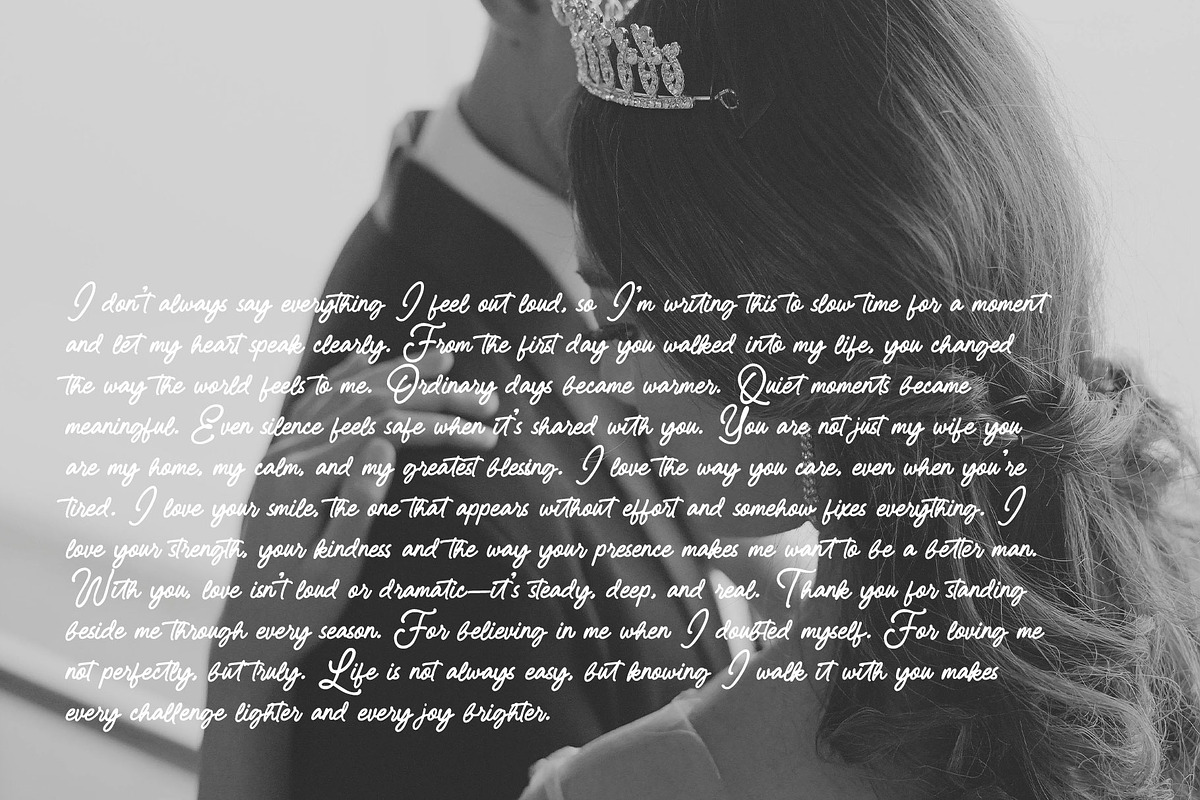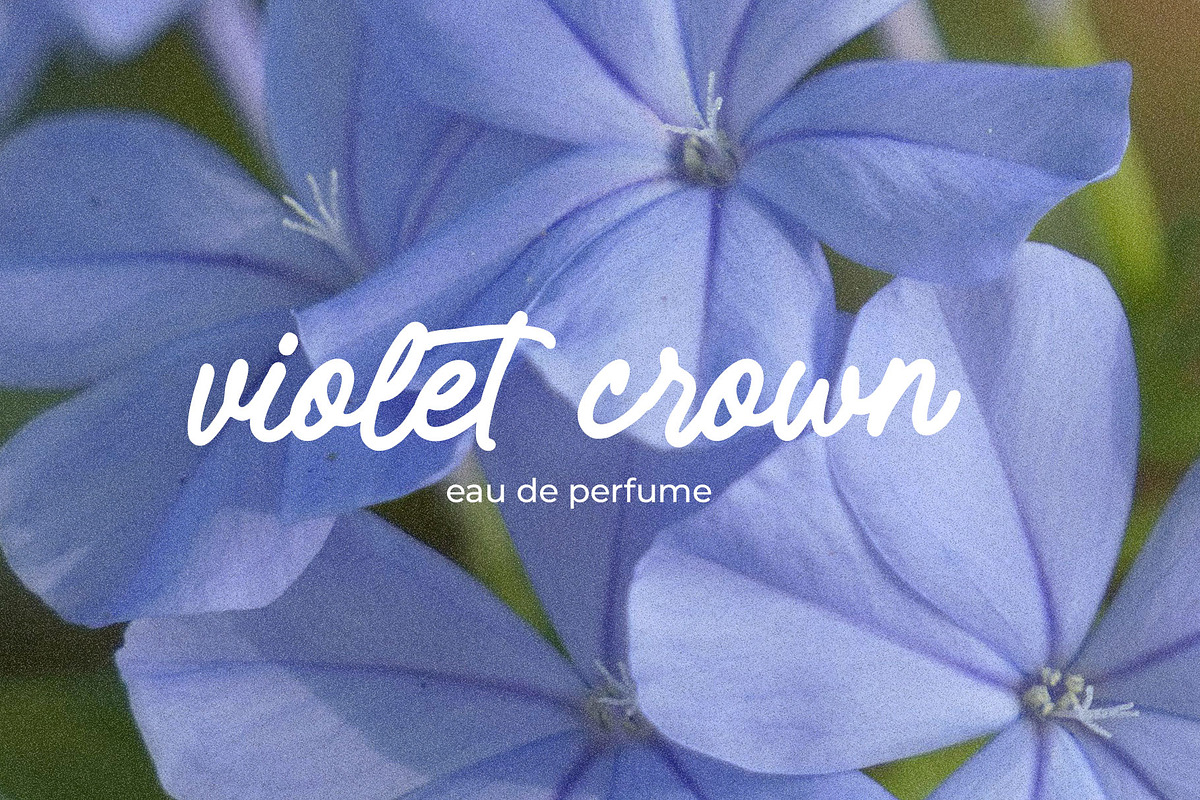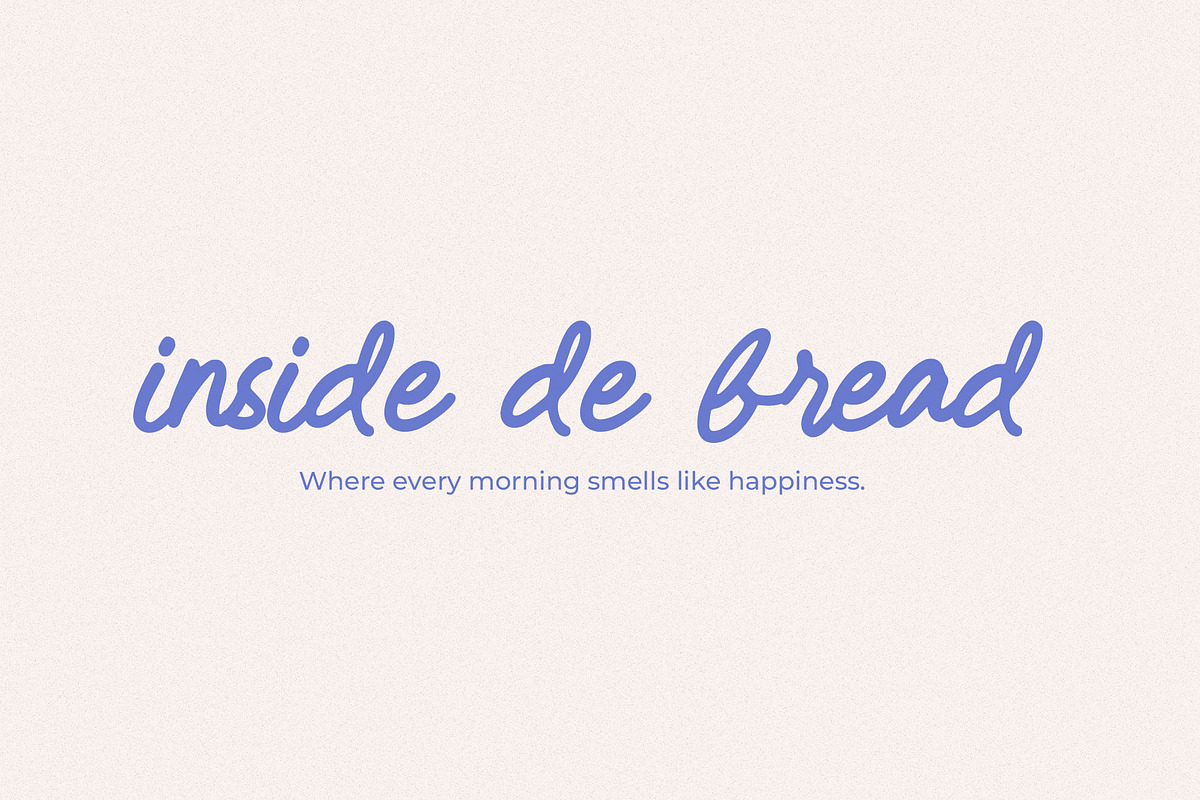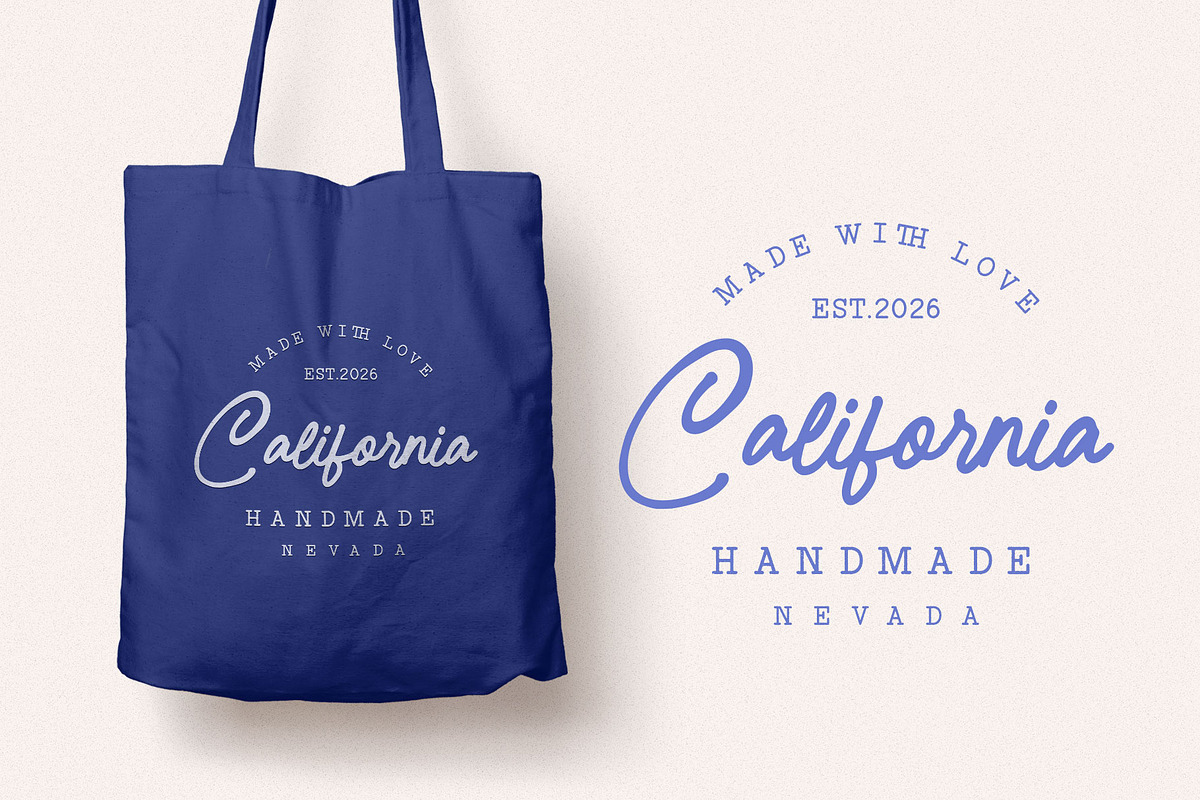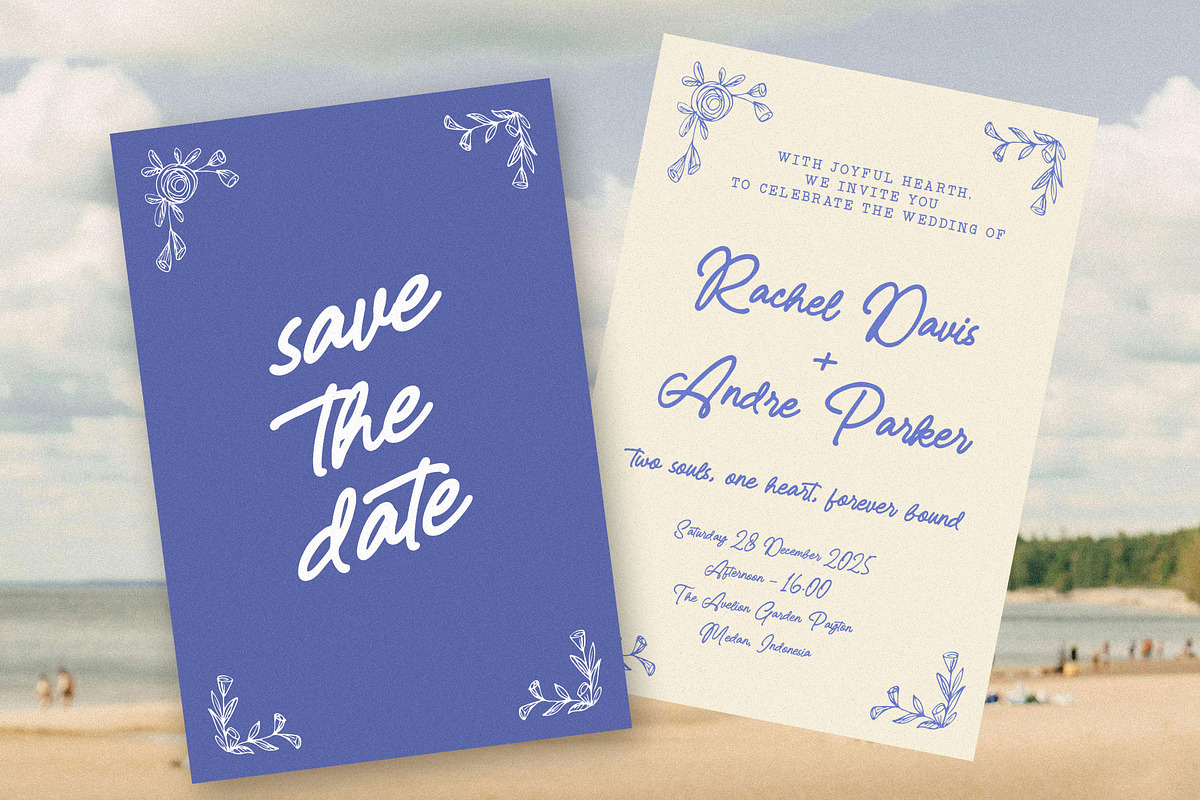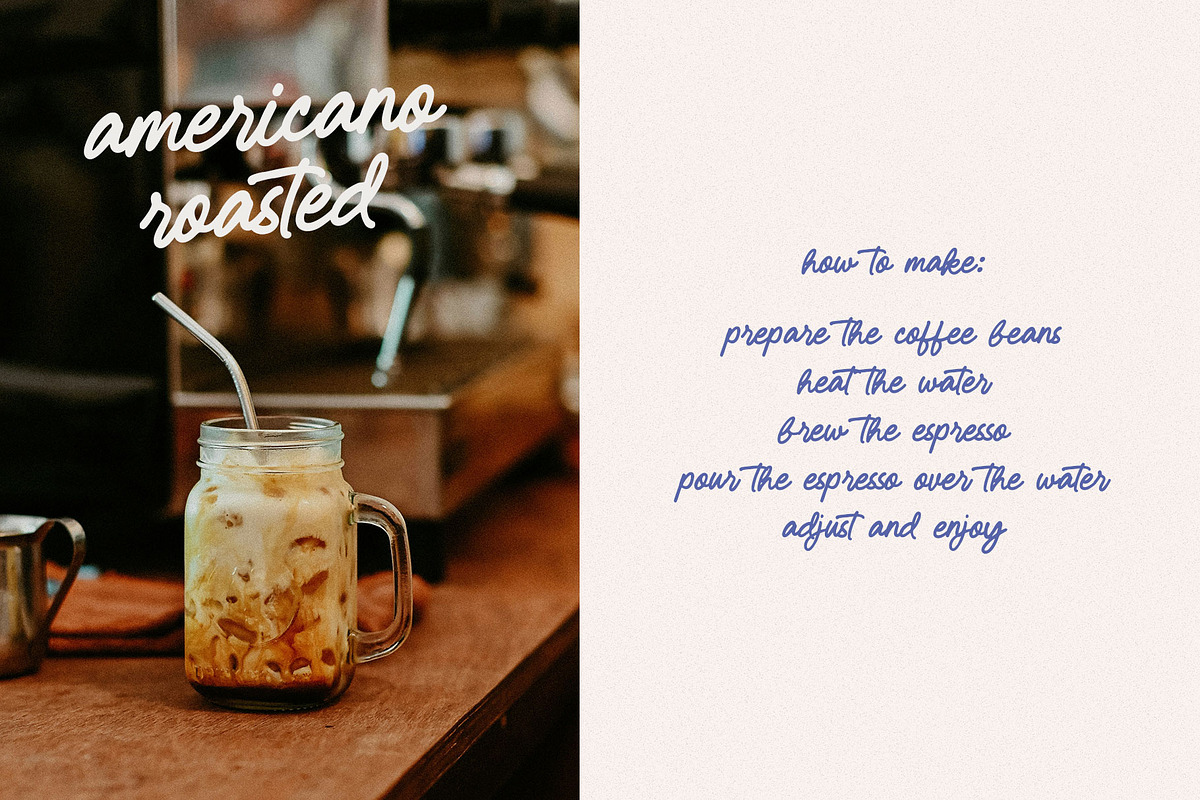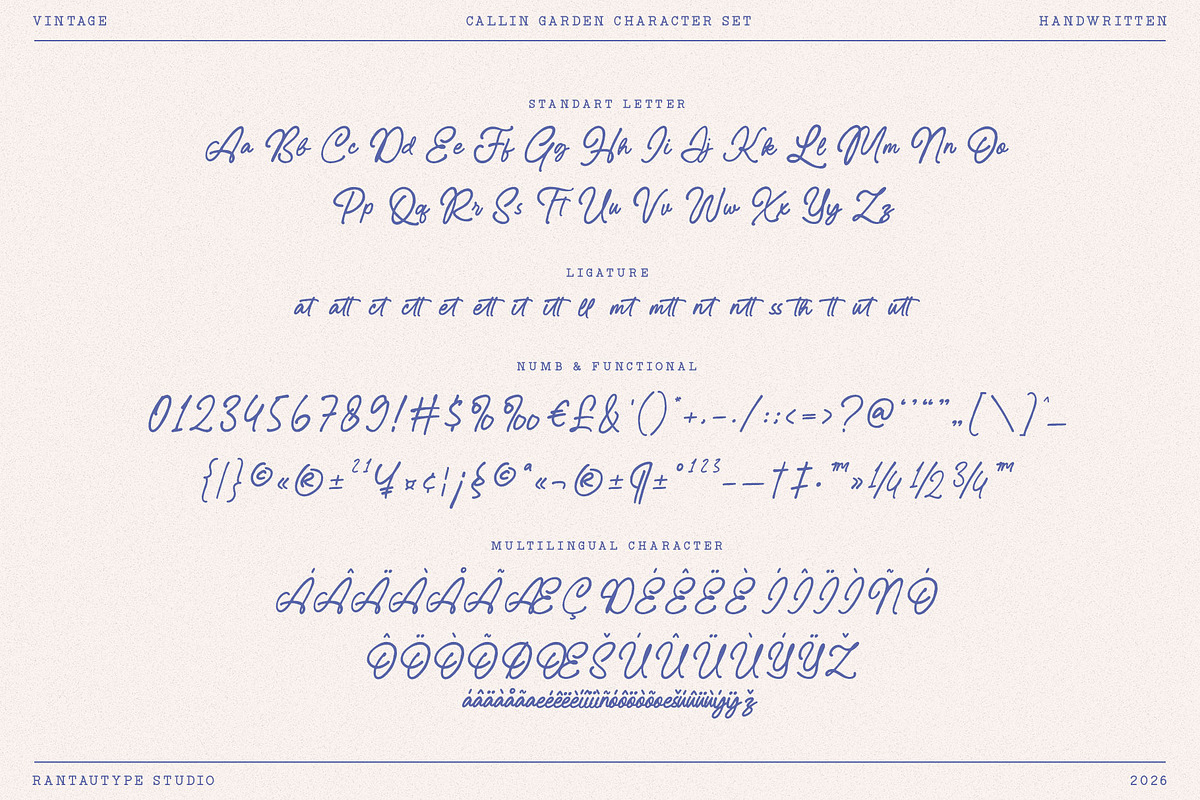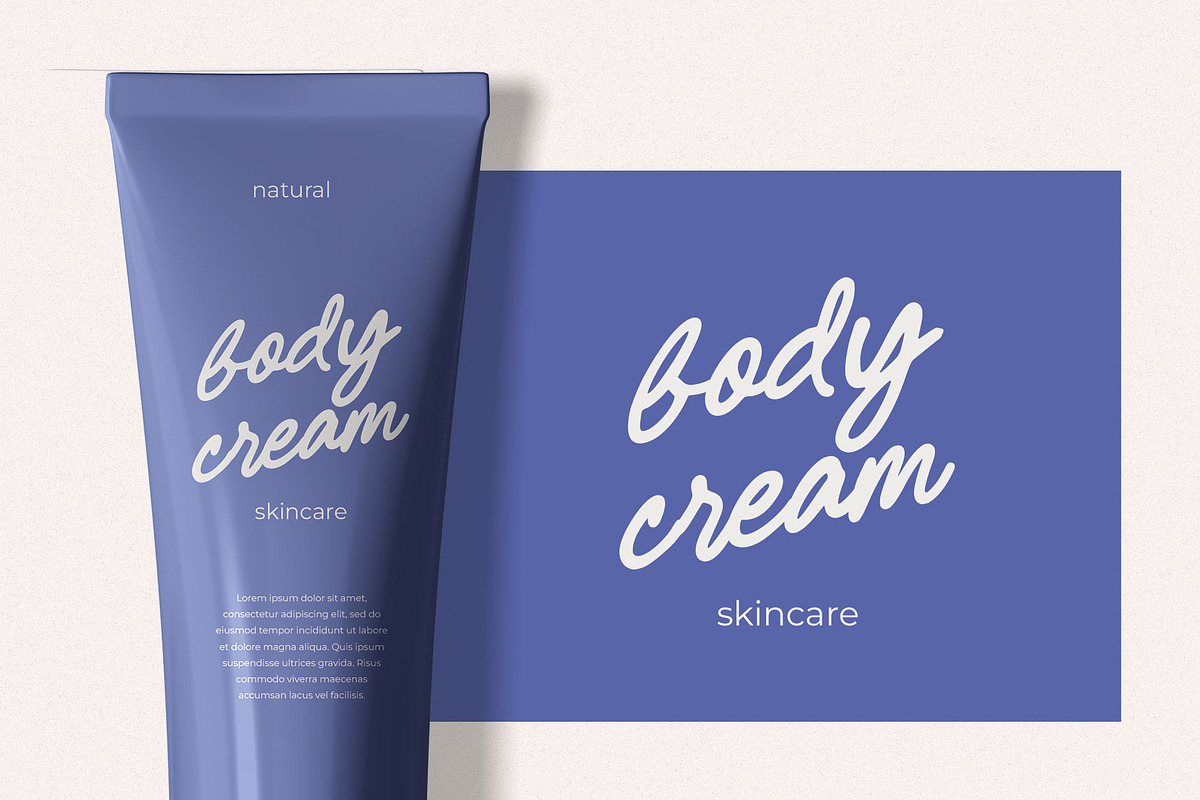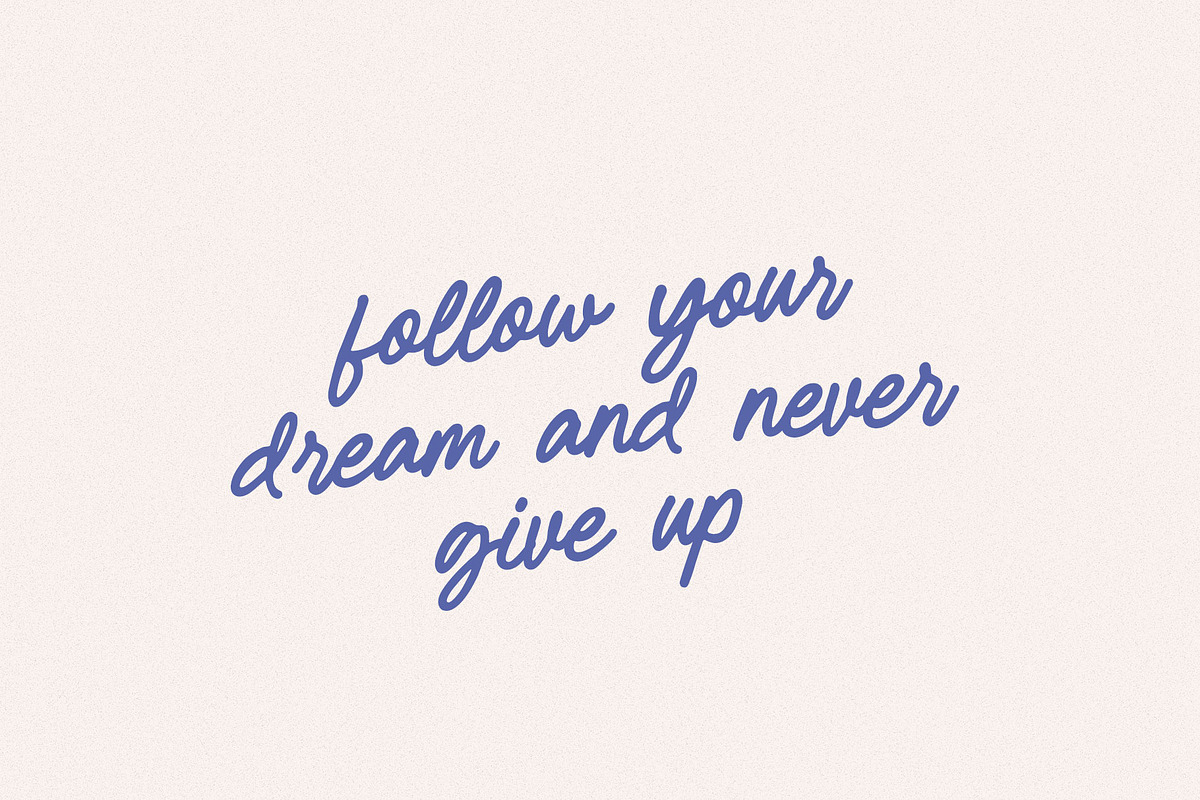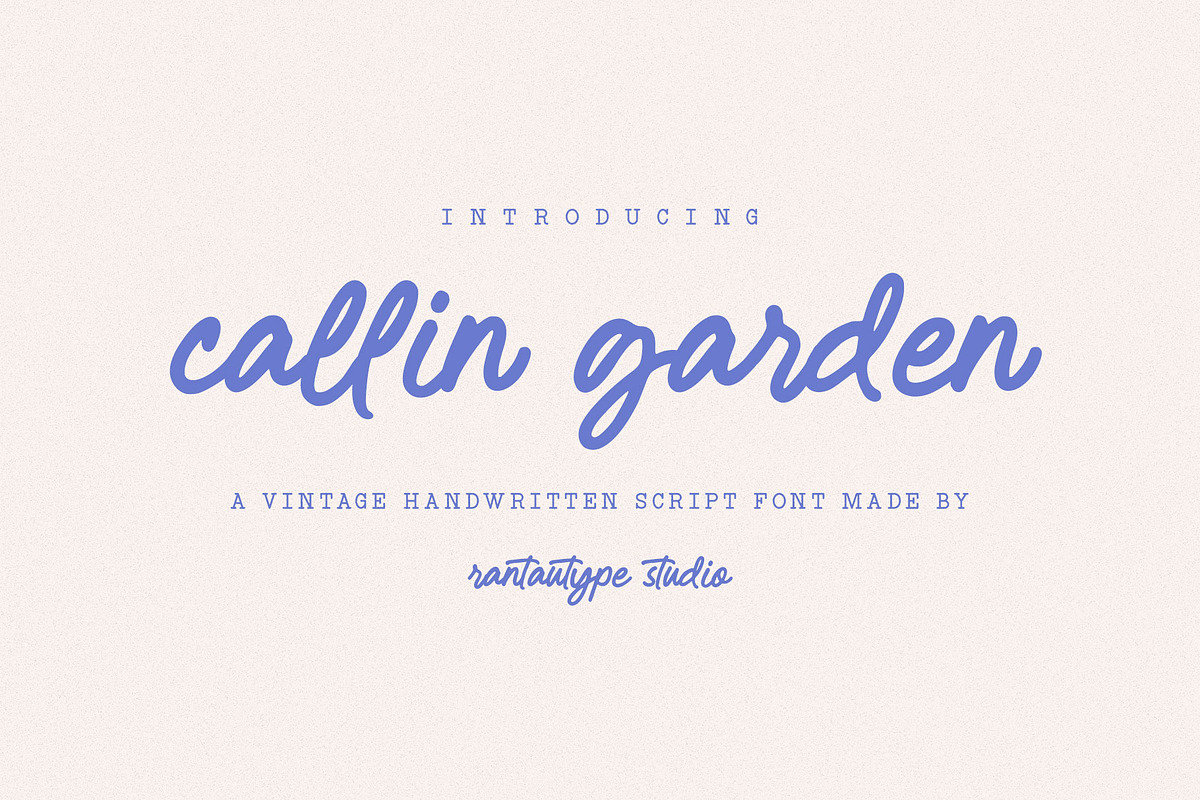
Callin Garden Vintage Handwritten
Callin Garden is vintage handwritten font with natural flow. Callin Garden is a perfectly choice for any creative endeavor, creating, modern, lifestyle design such as logotype, title, cover, branding, invitations, wedding designs, display and magazine, social media posts, advertisements, printed quotes, product packaging, corporate brand, product designs, labels, photography, watermarks, special events and any other project with vintage touch.
- Standart Glyphs
- Alternate and ligature
Fonts include Multilingual Character for: Afrikaans, Albanian, Asu, Basque, Bemba, Bena, Breton, Chiga, Cornish, Dutch, English, Estonian, Filipino, Finnish, Friulian, Galician, Gusii, Indonesian, Irish, Italian, Kabuverdianu, Kalenjin, Kinyarwanda, Luo, Luxembourgish, Luyia, Machame, North, Oromo, Portuguese, Quechua, Romansh, Rombo, Rundi, Rwa, Samburu, Sango, Sangu, Scottish, Gaelic, Sena, Shambala, Shona, Soga, Somali, Spanish, Swahili, Swedish, Swiss, German.